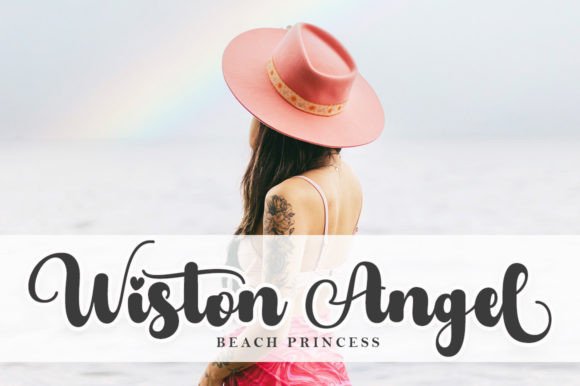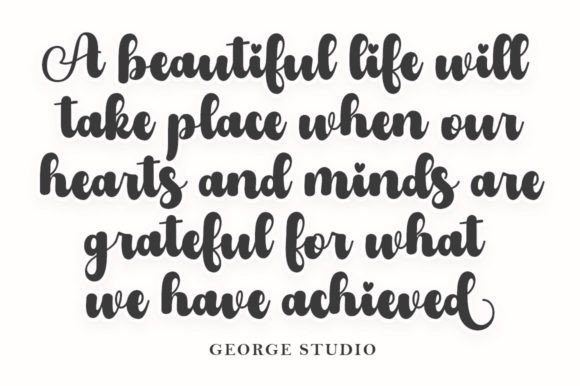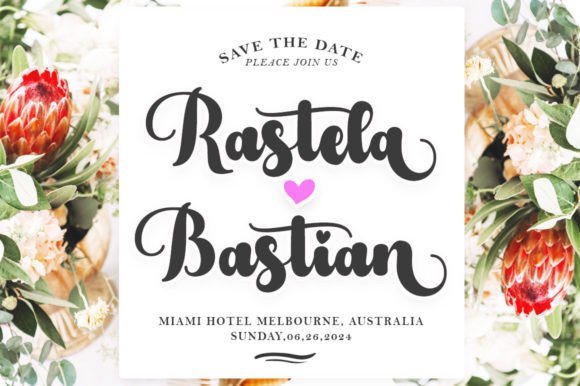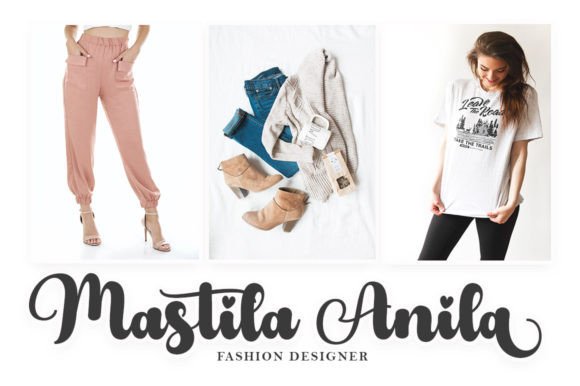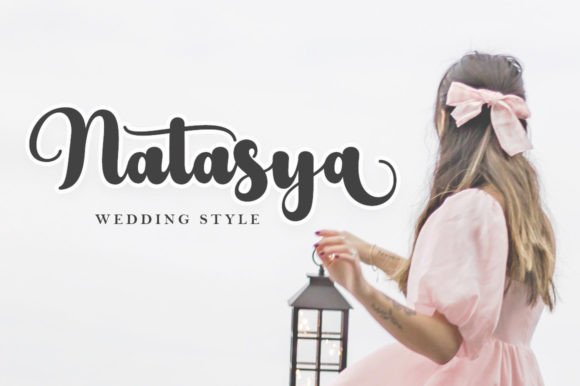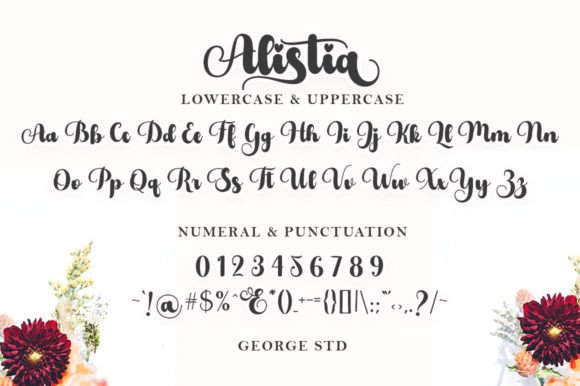
Introducing Alistia Font: The Perfect Blend of Fun and Professionalism
Are you tired of using the same old fonts in your design projects? Look no further than Alistia Font, a bold and expressive handwritten font that’s sure to make your work stand out. With its thick, solid lines and conservative curves, Alistia strikes the perfect balance between fun and professionalism, making it suitable for a wide range of design projects.
What Makes Alistia Font So Special?
Alistia Font is a unique and versatile font that’s designed to make a statement. Its bold and expressive style is perfect for headlines, titles, and other attention-grabbing elements, while its clear and readable design ensures that your message gets across with ease. Whether you’re working on a logo, brochure, or website, Alistia Font is the perfect choice for designers and crafters who want to add a touch of personality to their work.
Key Features of Alistia Font
- Bold and Expressive Style: Alistia Font is a bold and expressive handwritten font that’s perfect for making a statement.
- Easy to Read: Despite its bold style, Alistia Font is easy to read, making it perfect for body text and other applications where clarity is key.
- Conservative Curves: Alistia Font’s conservative curves ensure that it doesn’t overwhelm the eye, making it perfect for long blocks of text.
- Fun and Professional: Alistia Font strikes the perfect balance between fun and professionalism, making it suitable for a wide range of design projects.
Uses for Alistia Font
Alistia Font is a versatile font that can be used in a wide range of design projects, including:
- Logos and Branding: Alistia Font is perfect for logos and branding projects where you want to make a bold statement.
- Headlines and Titles: Use Alistia Font to add a touch of personality to your headlines and titles.
- Brochures and Flyers: Alistia Font is perfect for brochures and flyers where you want to grab attention and convey a message.
- Websites and Blogs: Use Alistia Font to add a touch of personality to your website or blog.
- Social Media Graphics: Alistia Font is perfect for social media graphics where you want to stand out from the crowd.
Tips for Using Alistia Font
Here are a few tips for using Alistia Font in your design projects:
- Use it as a Headline Font: Alistia Font is perfect for headlines and titles, so use it to grab attention and draw the eye.
- Pair it with a Serif Font: Pair Alistia Font with a serif font for body text to create a clear and readable design.
- Experiment with Colors: Alistia Font looks great in a range of colors, so don’t be afraid to experiment and find the perfect hue for your design.
Alistia Font is a bold and expressive handwritten font that’s perfect for designers and crafters who want to add a touch of personality to their work. With its thick, solid lines and conservative curves, Alistia strikes the perfect balance between fun and professionalism, making it suitable for a wide range of design projects. Whether you’re working on a logo, brochure, or website, Alistia Font is the perfect choice for anyone who wants to make a statement.